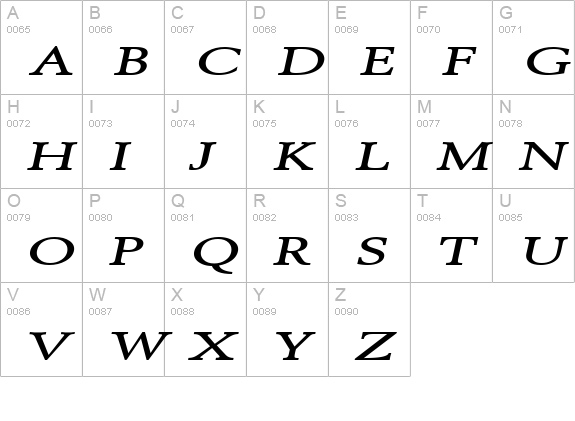
Revive 8 Extended BoldItalic is a distinctive, extended-width variant in the Revive typeface family \xE2\x80\x94 well suited to design and typography projects.
Introducing Revive 8 Extended BoldItalic, a captivating and visually stunning font that effortlessly captures attention with its bold and italicized form. Designed with utmost precision and attention to detail, this font exudes a sense of elegance and sophistication that adds a touch of refinement to any text it graces. Revive 8 Extended BoldItalic is the perfect choice for those seeking a typeface that stands out from the crowd. Its unique combination of boldness and italics creates a distinctive aesthetic that is both striking and modern. Whether you're designing a logo, creating a poster, or crafting a headline, this font will elevate your work to new heights. What sets Revive 8 Extended BoldItalic apart is not only its stunning design, but also the fact that it is freely available to download at FontsMarket.com. Yes, you read that right - this remarkable font can be yours at no cost! With just a few simple clicks, you can enhance your projects with the beauty and versatility of Revive 8 Extended BoldItalic, without spending a dime. So why wait? Take advantage of this amazing offer and download Revive 8 Extended BoldItalic today. Unleash your creativity and let this font inspire you to create captivating designs that leave a lasting impression. Whether you're a professional designer or a passionate hobbyist, this font is a must-have in your collection. Don't miss out on the opportunity to elevate your typography game with Revive 8 Extended BoldItalic. Experience the power of this remarkable font and witness how it transforms your designs into works of art. Download it for free at FontsMarket.com and soar to new creative heights.